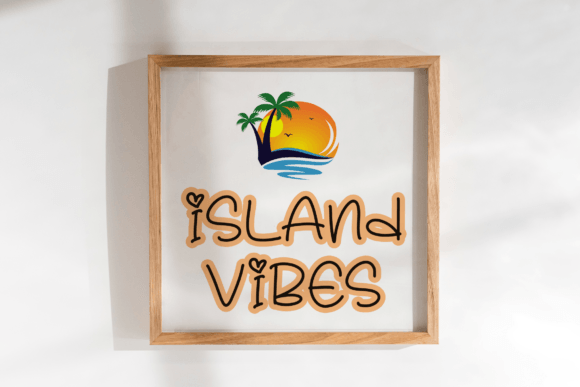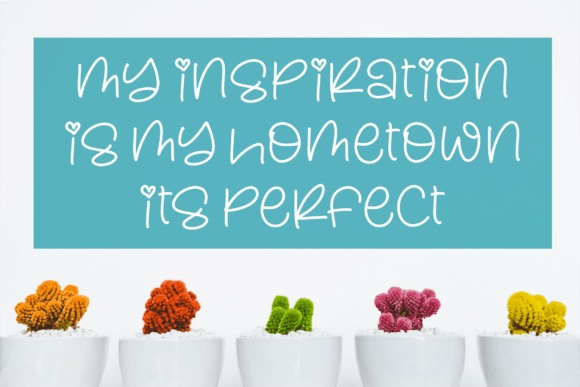
About Honey Sweety Font
Honey Sweety is a charming and playful handwritten font, meticulously crafted to infuse a touch of sweetness into a wide array of design projects. Its delightful style makes it a perfect fit for logos, branding projects, homeware designs, product packaging, mugs, quotes, posters, shopping bags, T-shirts, book covers, name cards, invitation cards, greeting cards, labels, photography, watermarks, special events, and any other creative endeavor that calls for a beautiful script taste.
The playful nature of Honey Sweety adds a lighthearted and whimsical touch to your designs, making it particularly well-suited for projects that seek to evoke a sense of joy and warmth. Whether you’re creating a logo that demands a friendly and approachable vibe or designing T-shirts that need a playful twist, Honey Sweety is designed to bring a delightful script taste to your projects.
Imagine this font adorning a product label, where each letter exudes a sense of sweetness and charm. Picture it enhancing a poster design, adding a playful and vibrant element to your visual communication. The versatility of Honey Sweety extends across various design contexts, making it a valuable asset for designers looking to infuse their work with a touch of delightful script elegance.
Honey Sweety isn’t just a font; it’s a playful design tool that invites you to bring a sense of joy and creativity to your projects. Its handwritten style adds authenticity and personality, making your designs visually appealing and engaging. Whether you’re a seasoned designer or someone exploring the world of creativity, Honey Sweety encourages you to add a beautiful script taste to all your lovely projects.
Let Honey Sweety be the charming element that brings a smile to your logos, warmth to your homeware designs, and sweetness to your product packaging. Embrace the whimsical spirit of Honey Sweety and let it be the playful script taste that enhances all your creative endeavors.